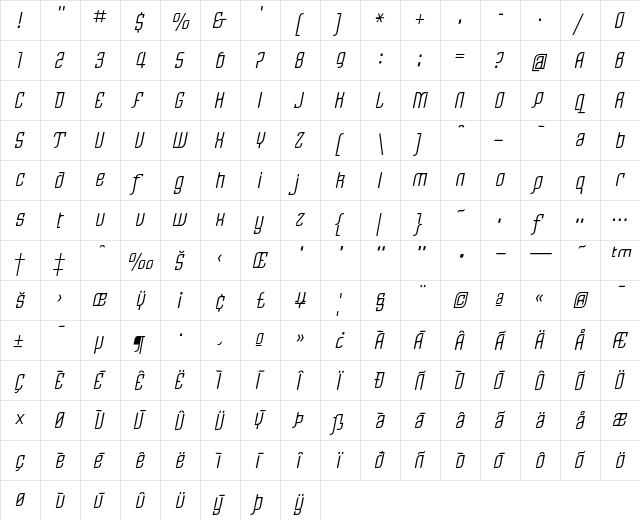
Linotype Rezident One Regular
Design Context for Linotype Rezident One Typeface
Linotype Rezident One is a composed and adaptable typeface that performs quietly and consistently across a wide range of design contexts.